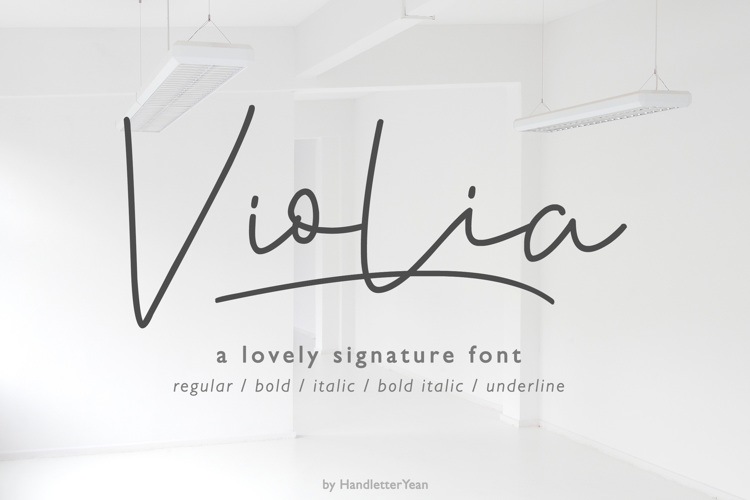
Violia Font
Violia from HandletterYean is a simple, elegant and authentic signature font with a contemporary feel. It will add a sophisticated spark to any design idea. This font is suitable for your creative work on greeting cards, branding materials, business cards, quotes, posters, wedding cards, logo design, blog design, stationery, marketing, magazines and more!